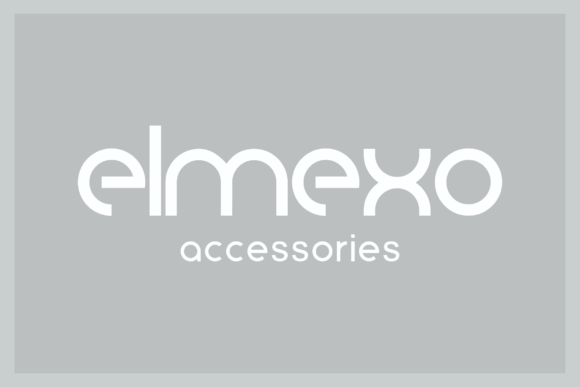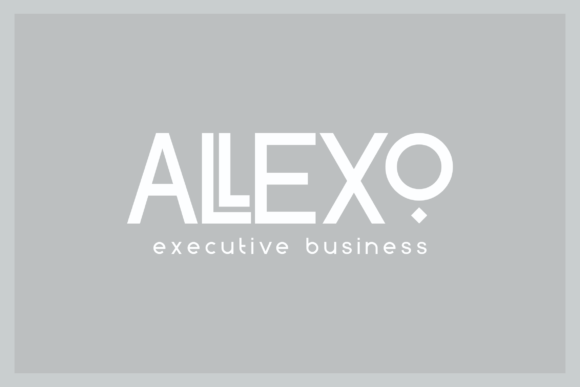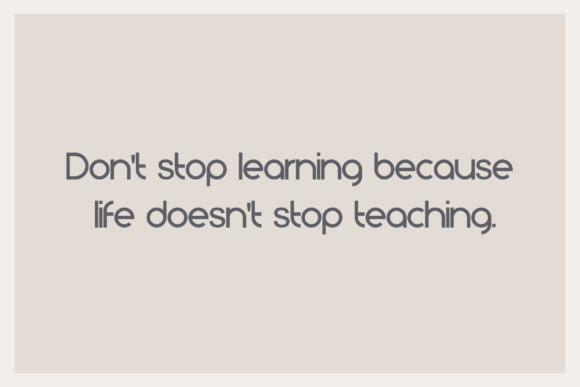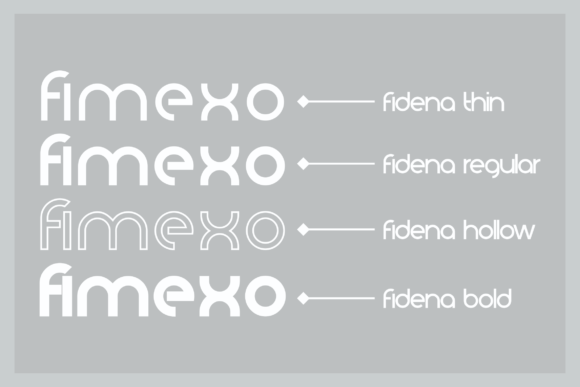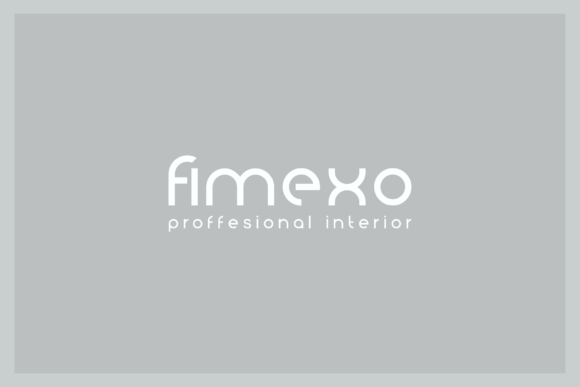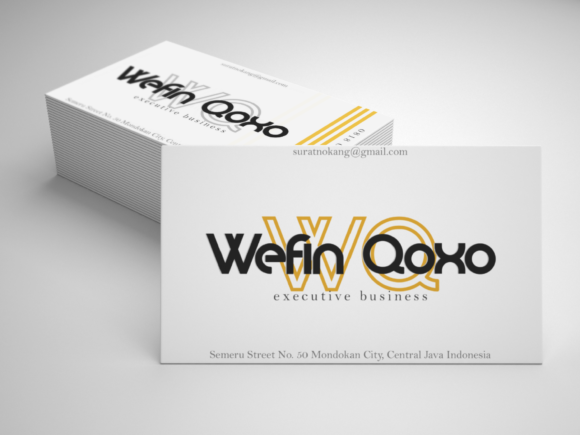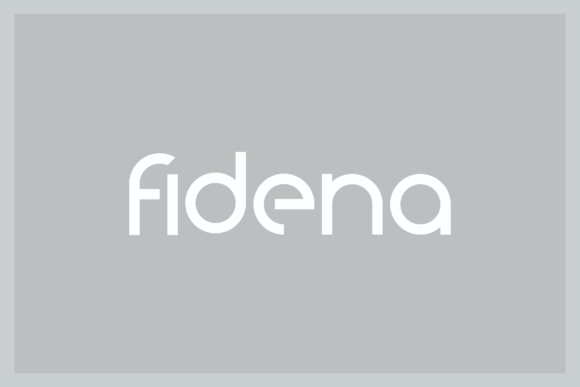
Fidena Font: Elevate Your Designs with Elegance and Sophistication
In the world of typography, a font can make or break a design. A well-chosen font can elevate your project, conveying the perfect tone and aesthetic. If you’re on the hunt for a versatile and elegant sans-serif font, look no further than Fidena. This stunning font is designed to impress, with a neat and simple style that makes it suitable for a wide range of designs. In this article, we’ll dive into the world of Fidena, exploring its features, benefits, and uses, and why it’s poised to become your go-to font for any occasion.
What is Fidena Font?
Fidena is a beautiful, sans-serif font that exudes elegance and sophistication. Its clean lines, simple shapes, and balanced proportions make it a joy to use in a variety of design projects. Whether you’re working on a logo, brochure, website, or social media graphics, Fidena is the perfect choice. Its versatility is unmatched, and its neutral style ensures that it will complement any design without overpowering it.
Key Features of Fidena Font
So, what sets Fidena apart from other fonts? Here are some of its key features:
- Four Extraordinary Weights: Fidena comes in four distinct weights: regular, hollow, bold, and thin. This range of weights allows you to add depth and visual interest to your designs, creating a sophisticated and polished look.
- Neat and Simple Style: Fidena’s simple and neat style makes it easy to read and use in a variety of contexts. Its clean lines and balanced proportions ensure that it will look great in both digital and print applications.
- Elegant and Sophisticated: Fidena’s elegant design makes it perfect for projects that require a touch of sophistication. Whether you’re working on a luxury brand, a high-end product, or a special occasion, Fidena is the perfect choice.
Benefits of Using Fidena Font
So, why should you choose Fidena for your next design project? Here are some benefits of using Fidena:
- Versatility: Fidena’s neutral style and range of weights make it suitable for a wide range of designs, from logos and branding to websites and social media graphics.
- Readability: Fidena’s simple and clean design makes it easy to read, even at small sizes. This makes it perfect for body text, captions, and other applications where legibility is key.
- Customization: With four weights to choose from, you can mix and match Fidena’s styles to create a unique and customized look for your designs.
Using Fidena Font in Your Designs
So, how can you use Fidena in your designs? Here are some ideas to get you started:
- Logos and Branding: Fidena’s elegant design makes it perfect for logos, business cards, and other branding materials.
- Websites and Digital Applications: Fidena’s clean lines and simple shapes make it a great choice for websites, mobile apps, and other digital applications.
- Print Materials: Fidena’s readability and versatility make it suitable for a wide range of print materials, including brochures, flyers, and posters.
- Social Media Graphics: Fidena’s elegant design makes it perfect for social media graphics, including Facebook and Twitter headers, Instagram graphics, and more.
In conclusion, Fidena is a stunning sans-serif font that is sure to elevate your designs. Its elegant design, range of weights, and versatility make it a great choice for a wide range of projects. Whether you’re a designer, craftsperson, or DIY enthusiast, Fidena is a font that is sure to impress. So why wait? Give Fidena a try today and see the difference it can make in your designs!